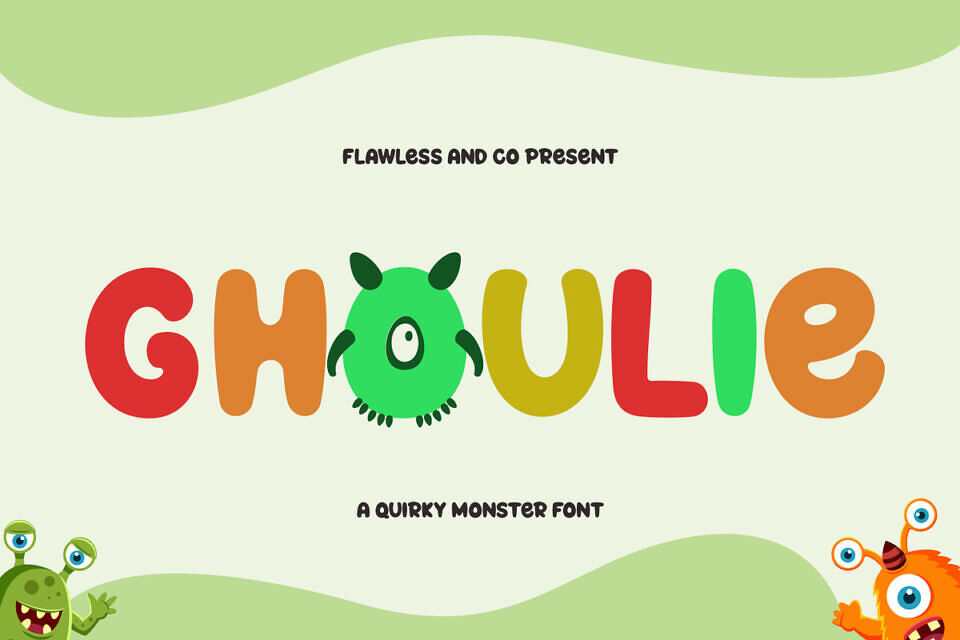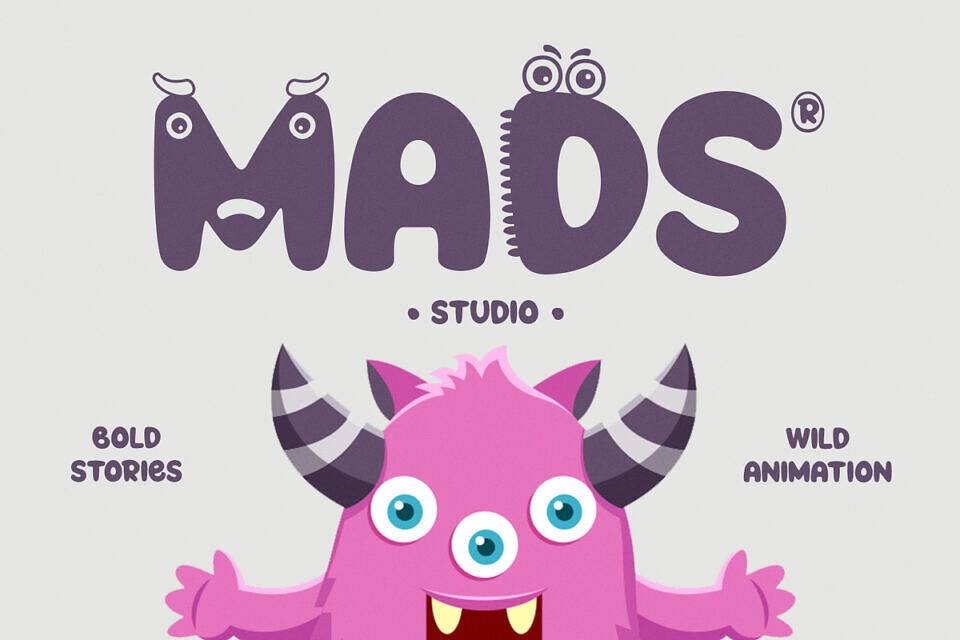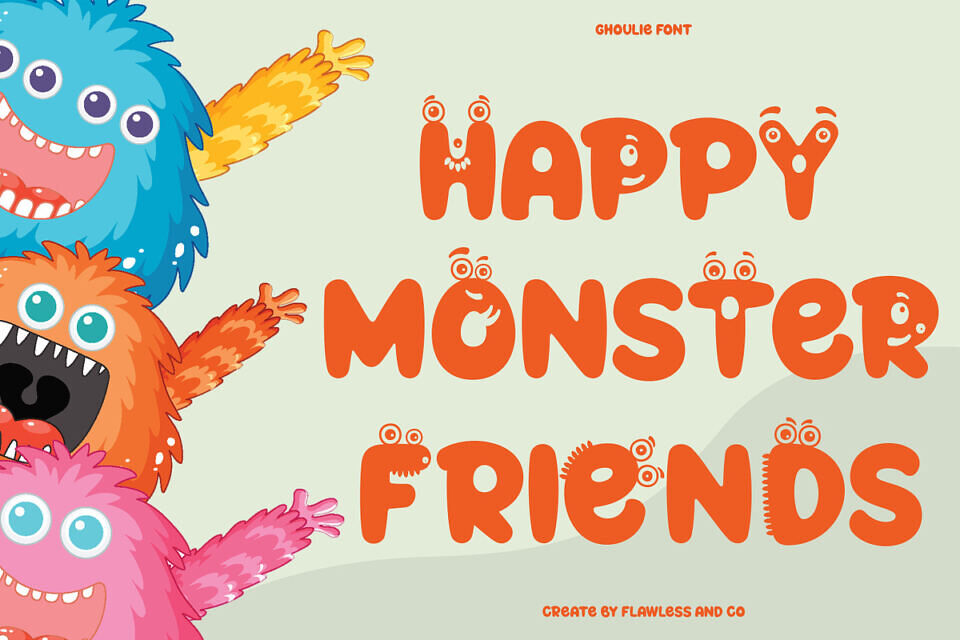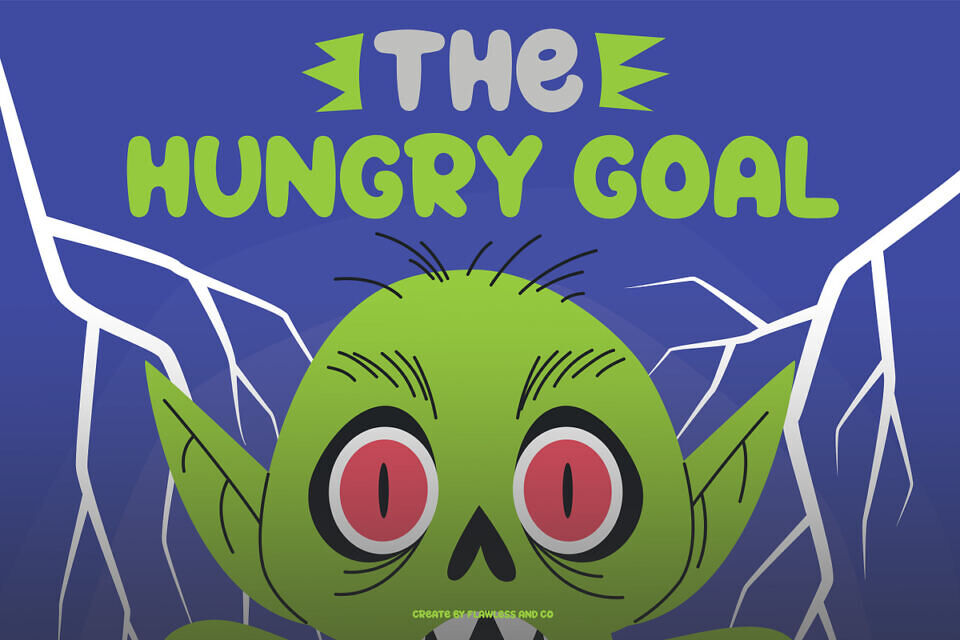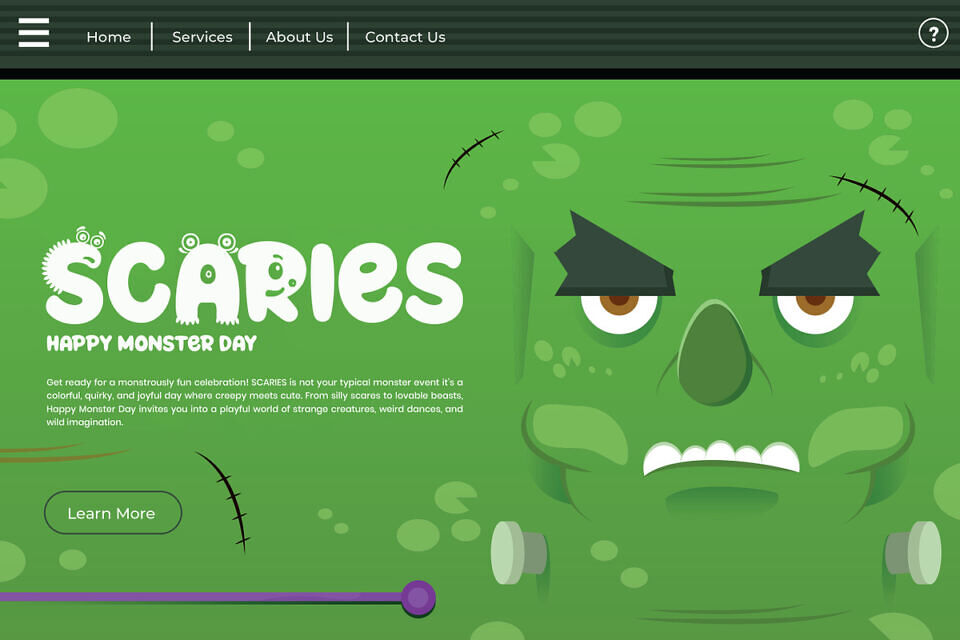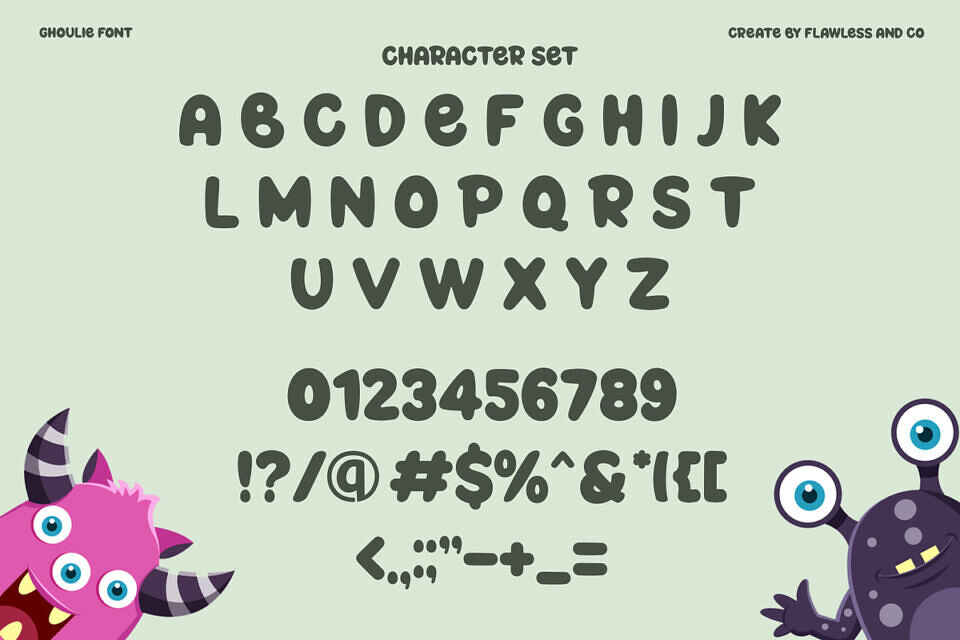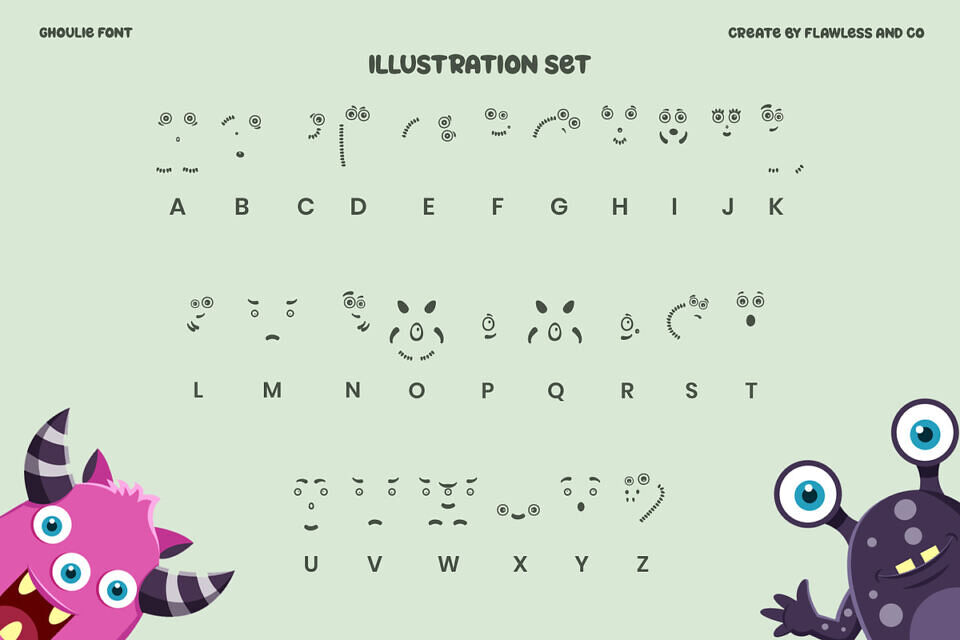
Ghoulie Font
Ghoulie is a playful and quirky monster font, full of charm and cheeky personality. Each letter feels alive, bouncing with color and mischievous energy, as if little monsters are peeking out from the alphabet.
With its rounded, friendly shapes and monster-inspired details, Ghoulie brings fun to every project—perfect for kids’ books, cartoons, games, party invitations, or anything that needs a touch of silly spookiness.
Despite its spooky name, Ghoulie radiates joy, laughter, and creativity, making it the perfect monster buddy for designers who want to bring characters to life through typography.